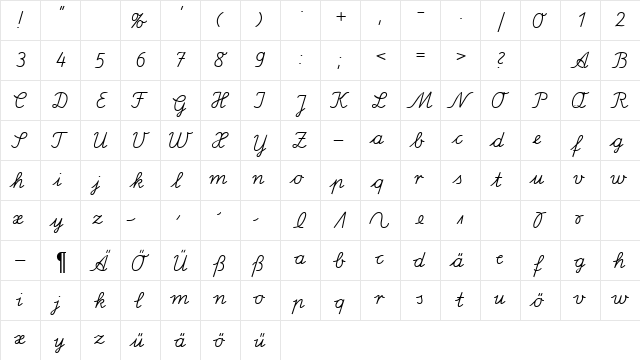
LA El DB Normal Font Preview
LA El DB Normal
LA El DB Normal Font Details
Design Context for LA El DB Typeface
LA El DB offers clean, dependable letterforms without strong stylistic allegiance, making it a practical choice for designers who need flexibility.